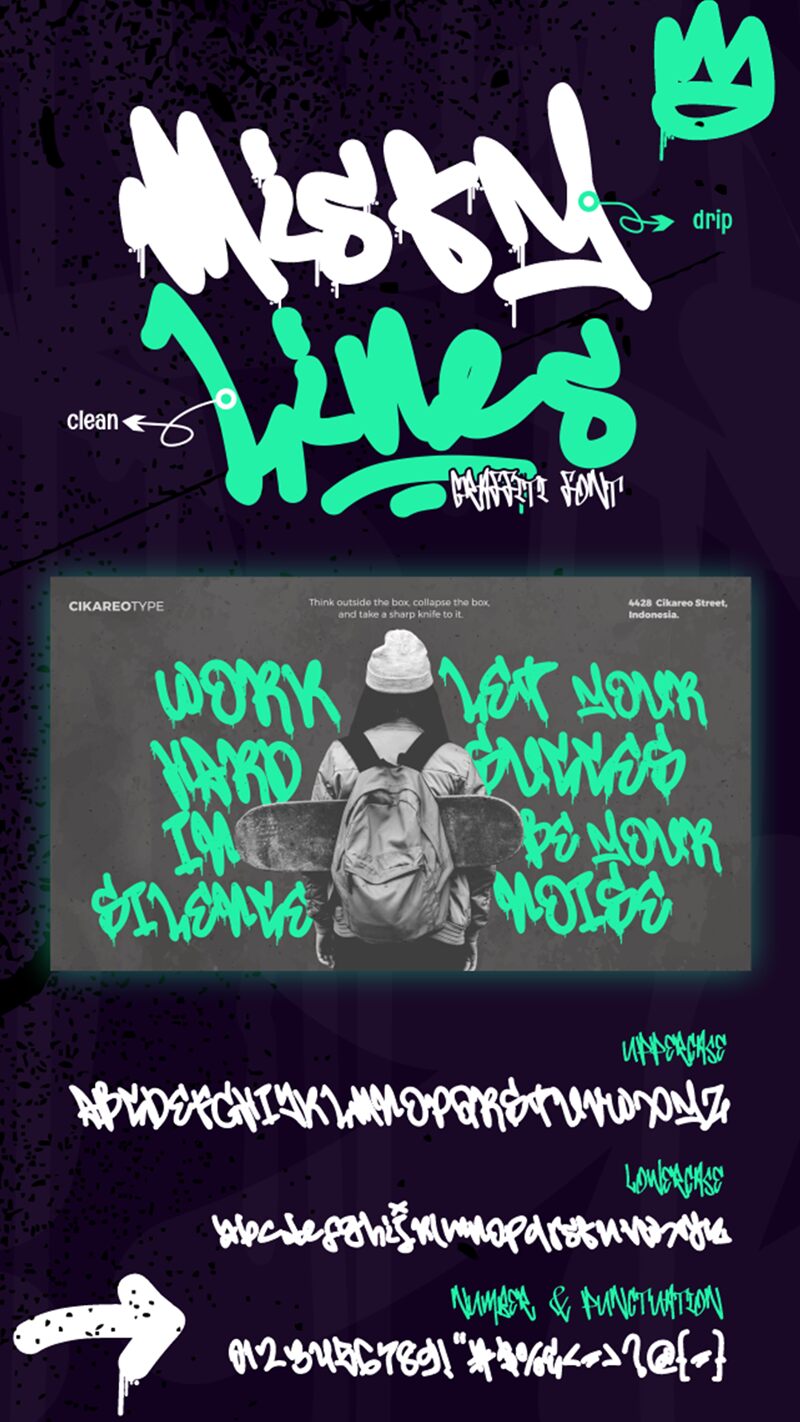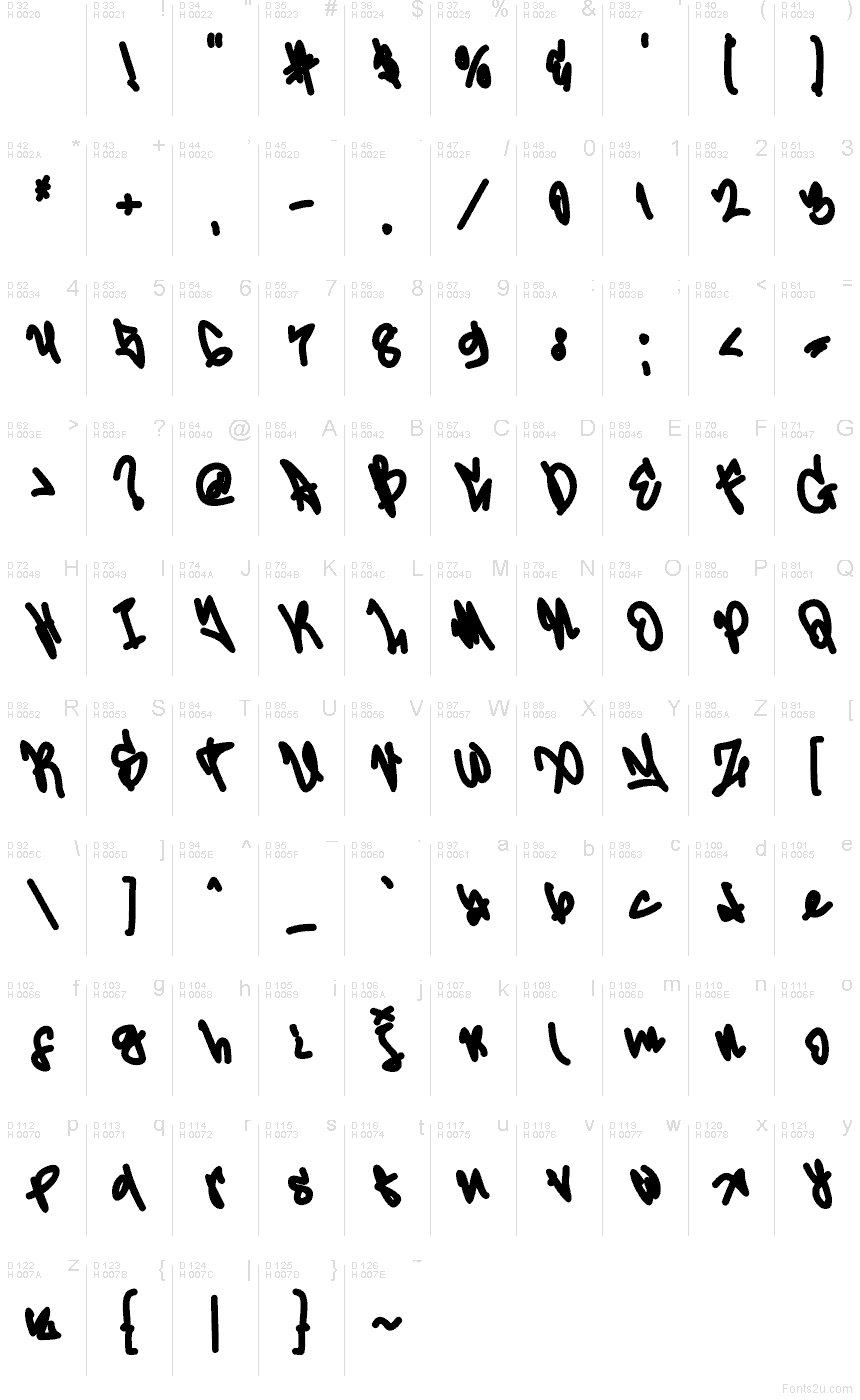
Misty Lines
Misty Lines font by Muhammad Panji Ramdhani of Sipanji x Figuree is a free graffiti font with a soaked-marker attitude—thick strokes, blobby joins, and a slightly foggy edge that feels like fresh ink on concrete. Its loose rhythm keeps things loud and playful, while the chunky weight stays readable even when you push it big.
Using Misty Lines, try streetwear logos, skateboard decks, music posters, YouTube thumbnails, sticker packs, event flyers, album art, and bold social headers. Give it room to breathe and pair it with a clean geometric sans for the small text; this free font hits hardest in short, punchy words.